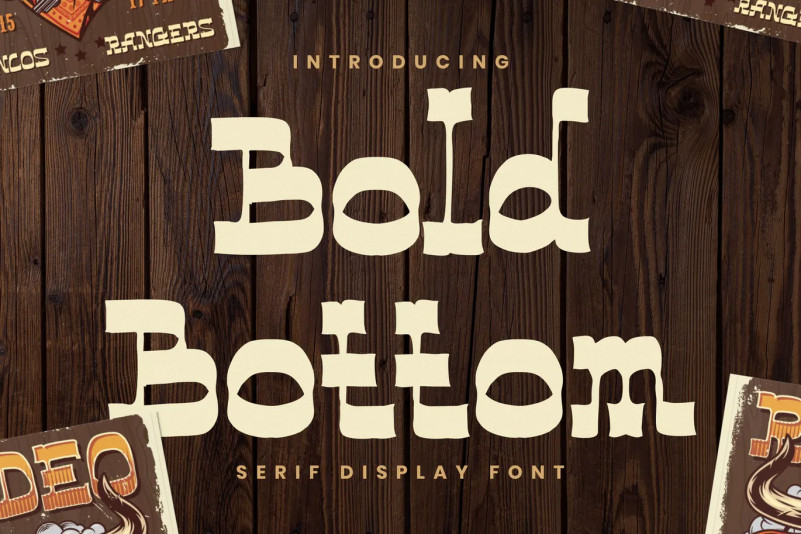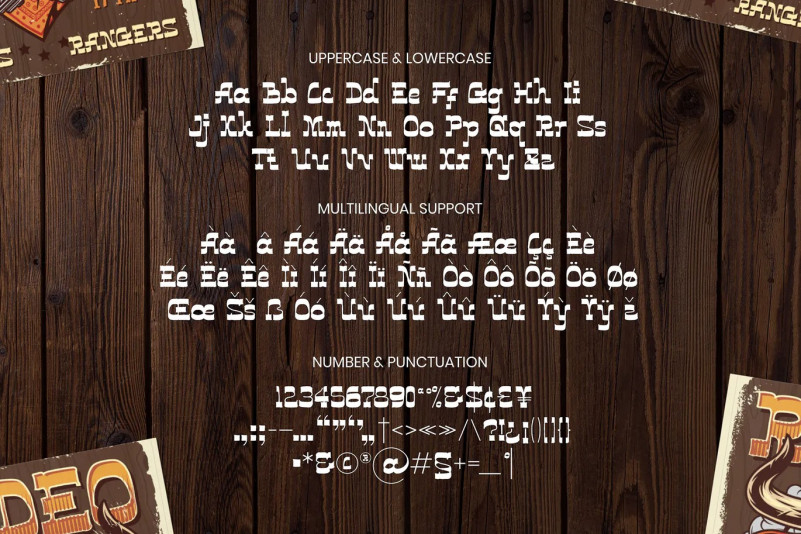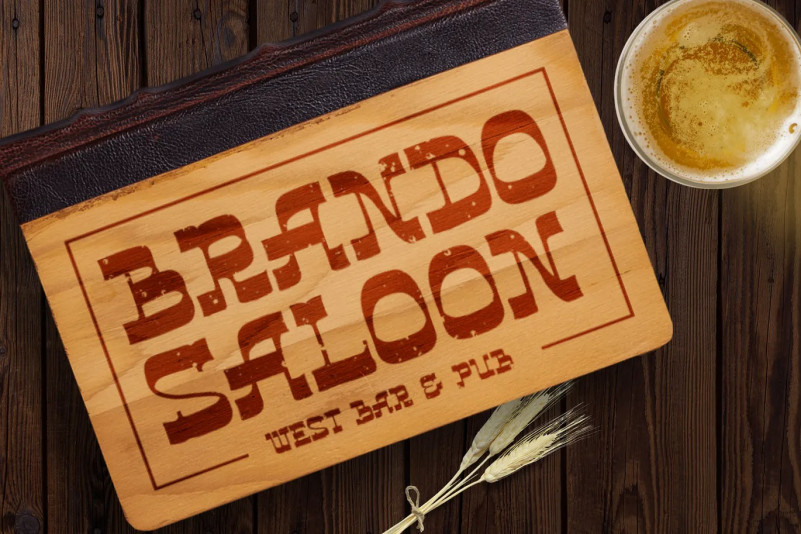
Bold Bottom Font
This font looks good and simple shape. Suitable for logotype, branding, packaging, quotes, poster, book, invitation and more custom design.